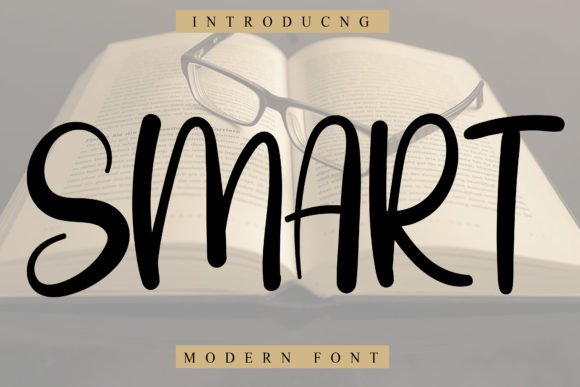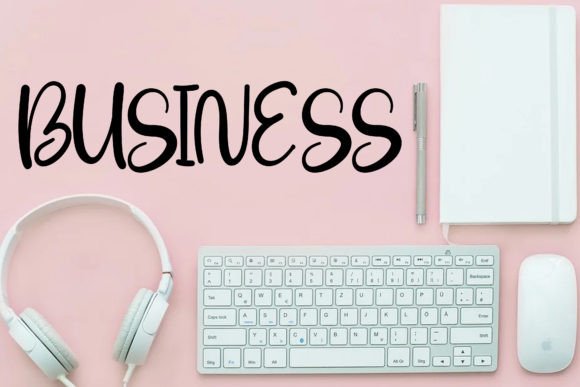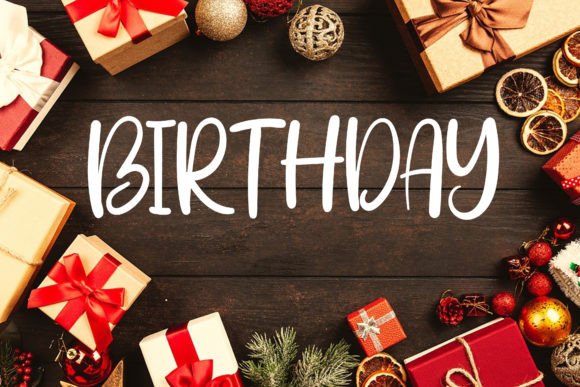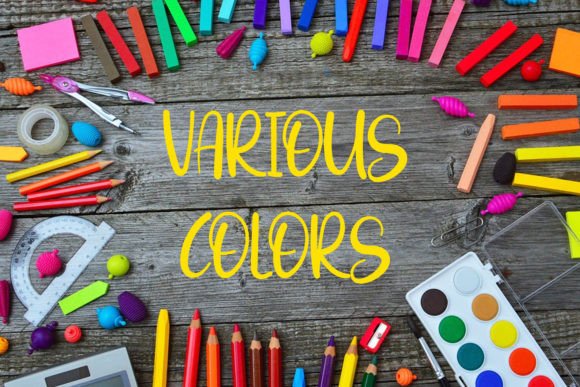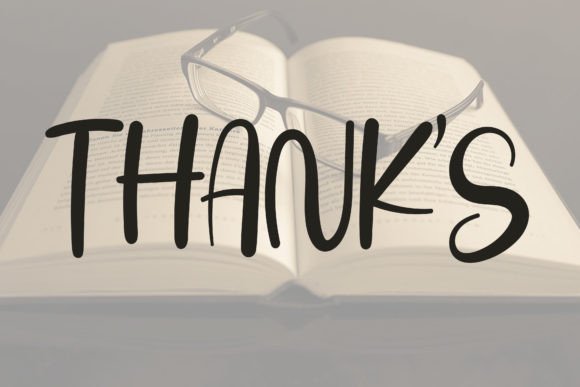
Smart Font
Introducing “Smart” – Your Neat and Casual Handwritten Font for Limitless Creativity!
“Smart” is not just a font; it’s a neat and casual handwritten typeface designed to unleash your creativity without bounds. With its natural and unique style, this font is incredibly versatile, making it a perfect fit for a wide range of design projects. The only limit? Your imagination!
With “Smart,” you get a font that’s both approachable and distinctive, allowing you to explore endless creative possibilities. Its handwritten style adds a personal and authentic touch to your text, ensuring that your content stands out and captures attention.
Imagine using “Smart” to craft memorable logos that represent your brand’s essence, design stylish social media posts that engage your audience, create eye-catching posters that convey your message, or add a touch of casual elegance to your creative projects. This font’s versatility and natural charm will make your creations truly remarkable.
Whether you’re a seasoned designer or someone looking to express your unique ideas, “Smart” is your ideal font for embracing limitless creativity.